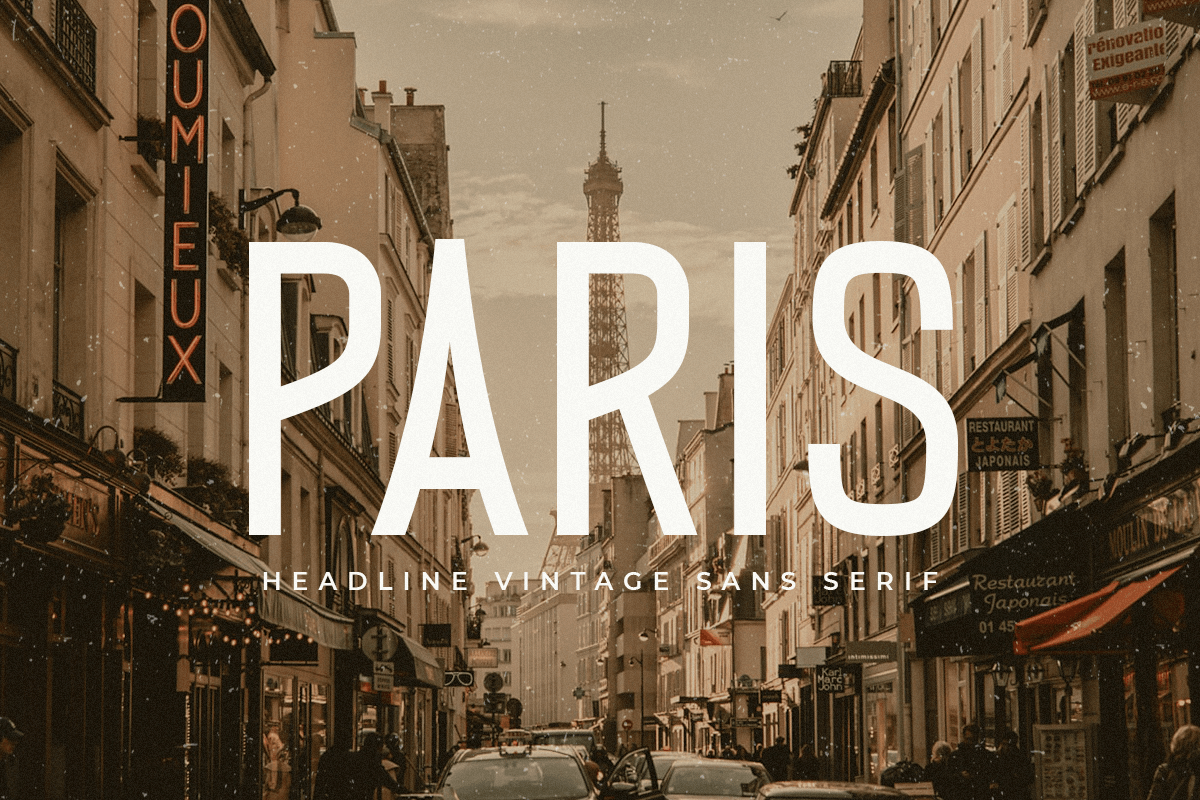
PARIS
-Headline Vintage Sans Serif
Paris
PARIS is a new Vintage Sans Serif font that perfect for Headline needs with all uppercase characters ready.
Based on our experience as a graphic designer who works for a lot of companies, we often are requested to design a graphic with a vintage feels and modern style. So, we try to brainstorming and create this font to make the idea is going out. This is perfect for show off in historical style and vintage vibes but with small space. You will get vintage, modern, and certainly unique style with this font.